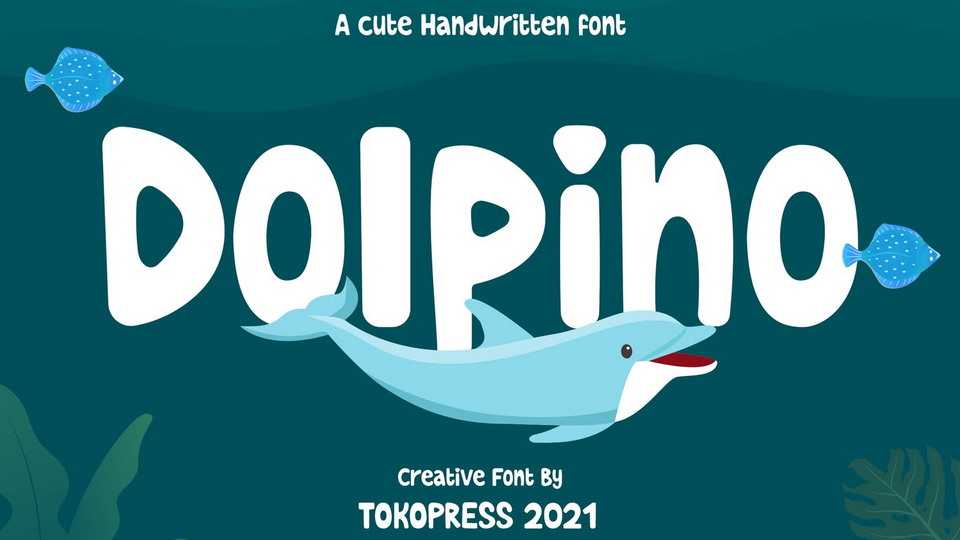
Download Dolpino font, a cute handwritten typeface. Happiness and joy are what children world. And Dolpino is all about that. It brings a smile all over the place.